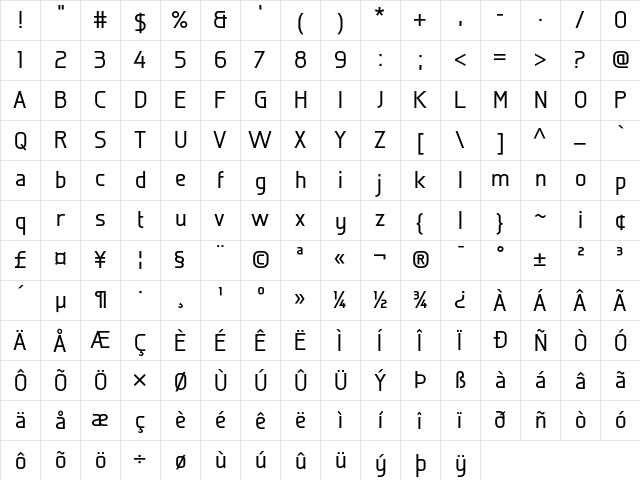
Galette Medium
| Foundry | Jan Schmoeger/Paragraph |
| Designer | Jan Schmoeger/Paragraph |
Design Context for Galette Typeface
Galette takes a measured approach to typography — its balanced proportions and neutral character make it a reliable workhorse for both digital and print work.